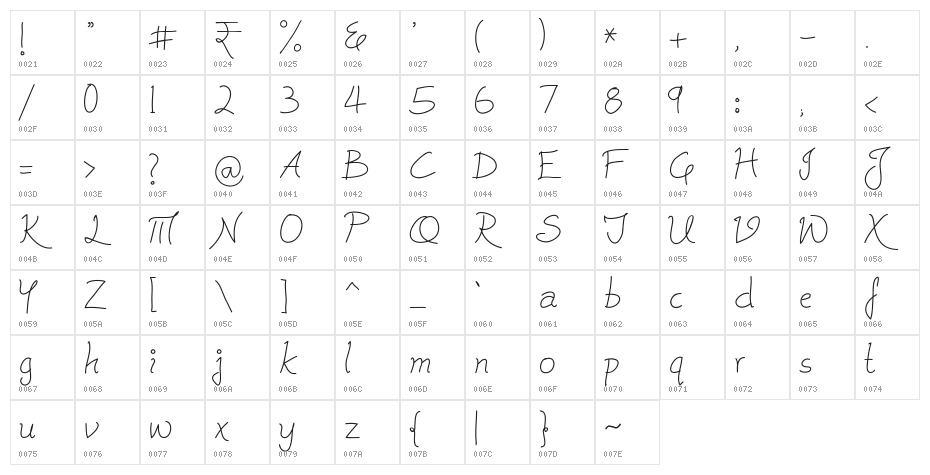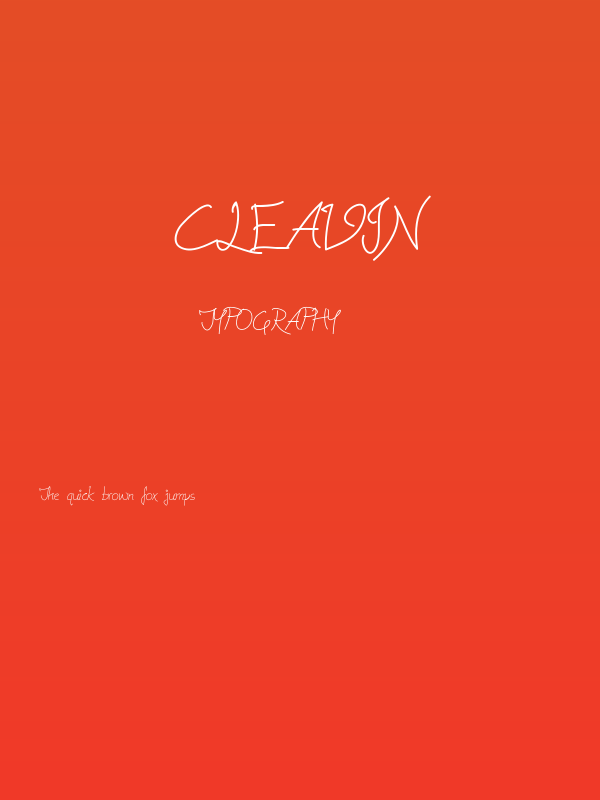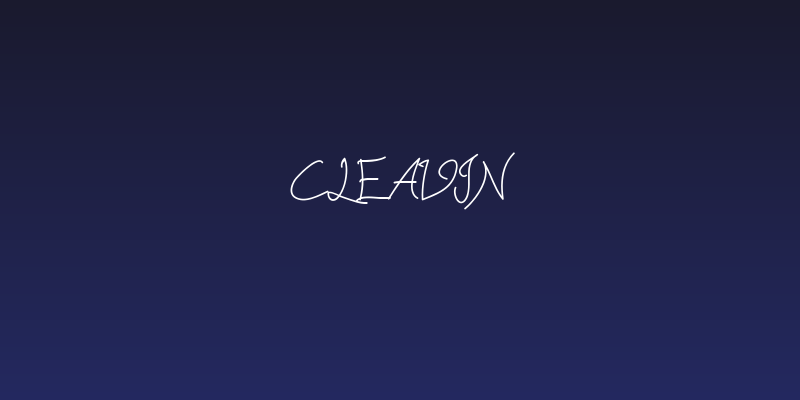
Cleavin Font
Cleavin Description
This font features a playful and whimsical handwritten style, characterized by its flowing, cursive-like strokes and unique character shapes. The letters are slightly slanted, giving a sense of movement and dynamism. The uppercase letters are tall and elegant, while the lowercase letters maintain a consistent height, adding to the font's readability. The numbers and special characters are crafted with the same playful touch, ensuring a cohesive look across all text elements. The overall appearance is casual yet sophisticated, making it suitable for a variety of creative projects.
| Overall Style | Casual, Elegant |
| Use Case | Headlines, Invitations, Personal Branding |
| Proposed Projects | Ideal for greeting cards, invitations, personal branding, and creative projects that require a casual yet elegant touch. |